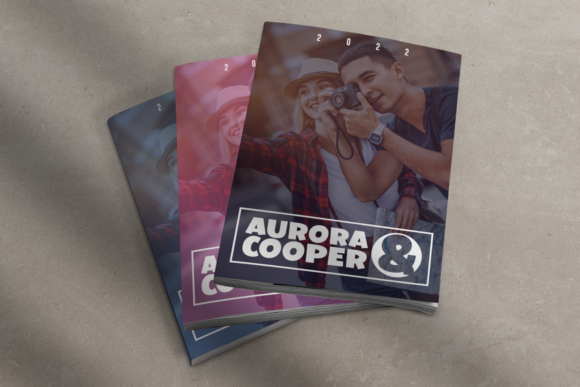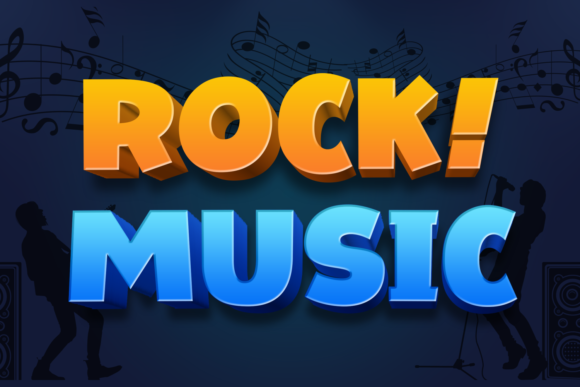
Space Story Font
Space Story Font is a free, unique, and cool font. This font is FREE to Download and suitable for designs such as t-shirts, sportswear, posters, logos, advertisements, clothing, and more.
Space Story Font is a free, unique, and cool font. This font is FREE to Download and suitable for designs such as t-shirts, sportswear, posters, logos, advertisements, clothing, and more. Whatever the topic, this font will be a great asset to your font collection, as it has the potential to enhance any creation.